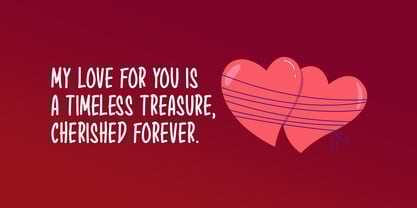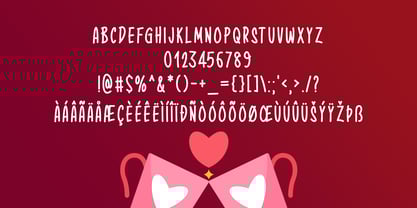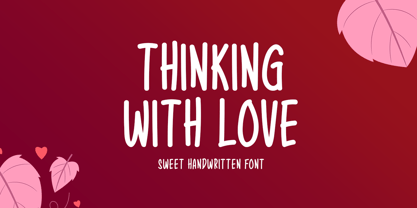
Thinking With Love
por Seemly Fonts
La familia tipográfica Thinking With Love fue diseñada por Md. Sohail Bhuiyan y publicada por Seemly Fonts. Thinking With Love contiene 1 estilos. Más información sobre esta familia
Thinking With Love is a sweet handwritten font that brings a sense of warmth and whimsy to any project. With its graceful, flowing design, it’s perfect for a range of creative endeavors such as stationery, branding, t-shirt designs, printed materials, website headers, photo frames, flyers, album covers, posters, and digital content like image sliders. Whether you're working on seasonal designs or year-round projects, this font beautifully conveys a heartfelt, personal touch that is ideal for spreading cheer and positivity.
Diseñadores: Md. Sohail Bhuiyan
Fundición: Seemly Fonts